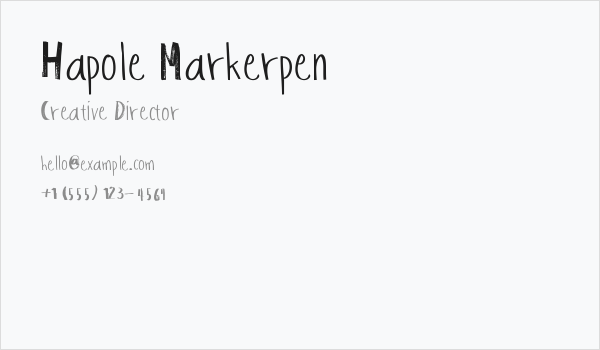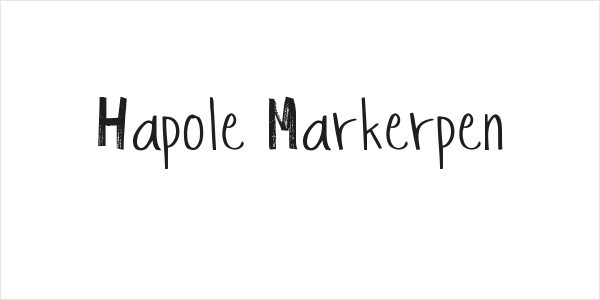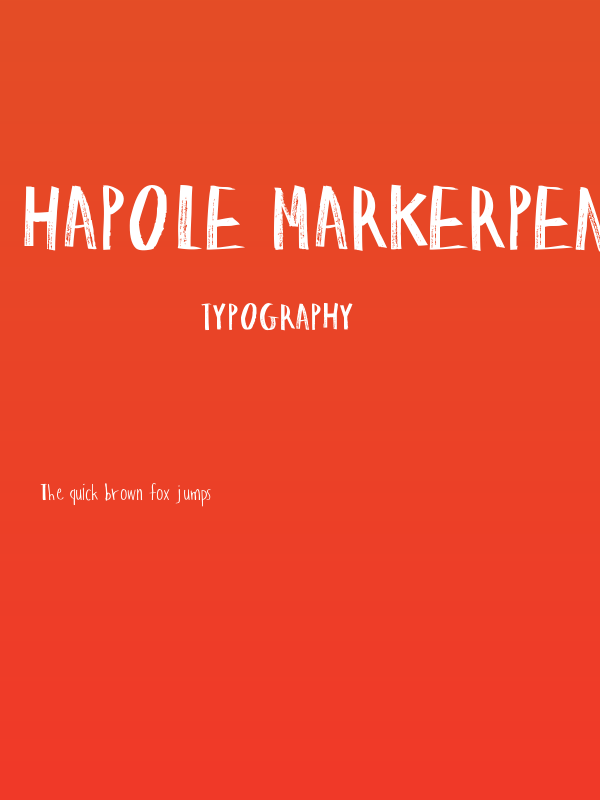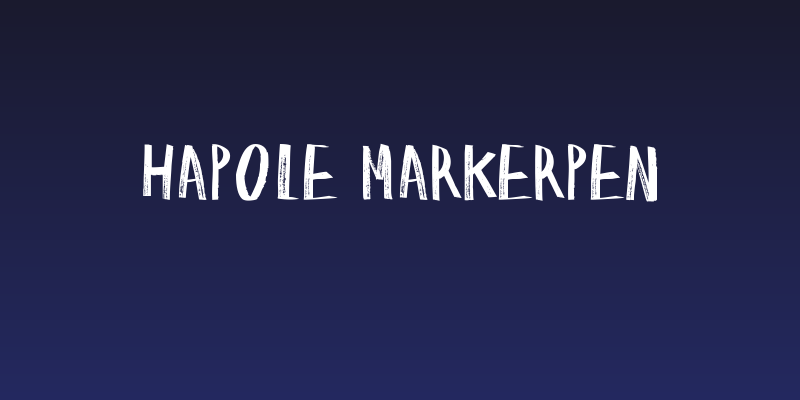
Hapole Markerpen Font
Hapole Markerpen Description
This font exudes a playful and artistic vibe, reminiscent of hand-drawn marker strokes. The uppercase letters are bold and slightly distressed, giving them a textured appearance that adds character and depth. The lowercase letters maintain a consistent flow with a more casual, handwritten style, offering a nice contrast to the uppercase. The numerals are bold and dynamic, matching the expressive style of the letters. Special characters are creatively designed, maintaining the overall artistic theme. This font is perfect for projects that require a personal touch, such as invitations, posters, or creative branding.
| Proposed Projects | Ideal for creative projects like invitations, posters, branding, and any design needing a personal, artistic touch. |